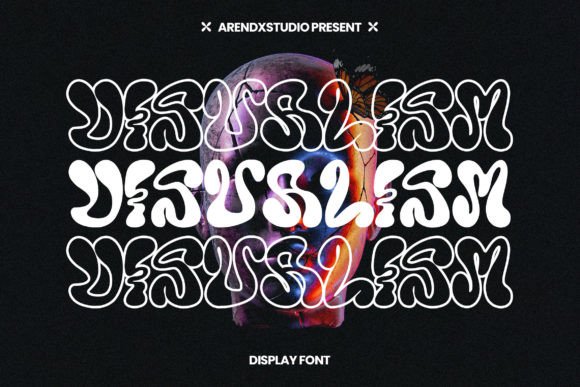
Visualism Font: Unleash Your Creativity with an Urban Edge
In the realm of fonts, Visualism Font stands out as a true masterpiece, an alluring display font that exudes the raw energy and untamed spirit of street art. Each character in this font family dances with a free-spirited charm, capturing the essence of individuality and rebellion.
Visualism Font is more than just a collection of letters; it's an invitation to embark on a creative odyssey, a journey where your imagination can flourish and take flight. Whether you're a seasoned designer or just starting your artistic voyage, this font will ignite your passion and empower you to create captivating designs that leave a lasting impression.
With its bold strokes and dynamic lines, Visualism Font is perfect for crafting eye-catching signs that command attention from afar. Imagine your brand's logo emblazoned in this font, exuding an aura of strength and confidence that draws customers in like magnets.
Unleash your inner artist and let Visualism Font guide you as you design breathtaking wall art that transforms dull spaces into vibrant expressions of your creativity. Let the walls speak volumes with quotes that inspire, uplift, and spark conversations.
The world of music comes alive when Visualism Font graces album covers. Its energetic vibe perfectly captures the raw emotion and energy of your favorite tunes, creating a visual symphony that complements the auditory masterpiece within.
Unleash the power of Visualism Font to create stunning banners that announce your events, promotions, and special occasions with a flourish. Grab the spotlight and make your message impossible to ignore.